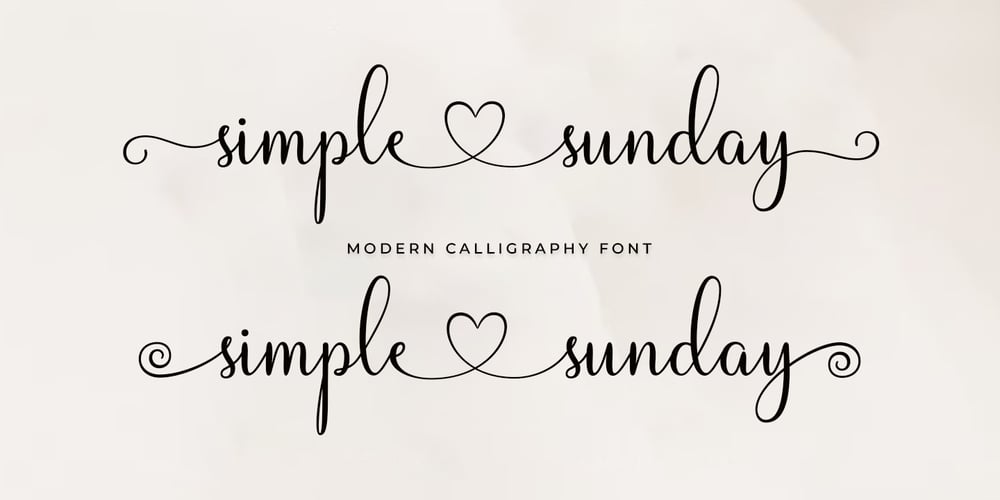
Simple Sunday
Simple Sunday font
Simple Sunday Font Family was designed by Mur Zani and published by Zane Studio. Simple Sunday contains 1 styles and family package options. simple sunday is a modern calligraphy script perfect for wedding invitations, calligraphy logos for branding, elegant websites, personalized gifts, social media posts and whatever your heart desires!Included with simple sunday is a complete set of initial and final lowercase strokes, uppercase replacements, and heart connector strokes to create a realistic handwritten calligraphy look for your designs.Thank you for visiting my store, and please contact me if you have any questions!-Zane✨